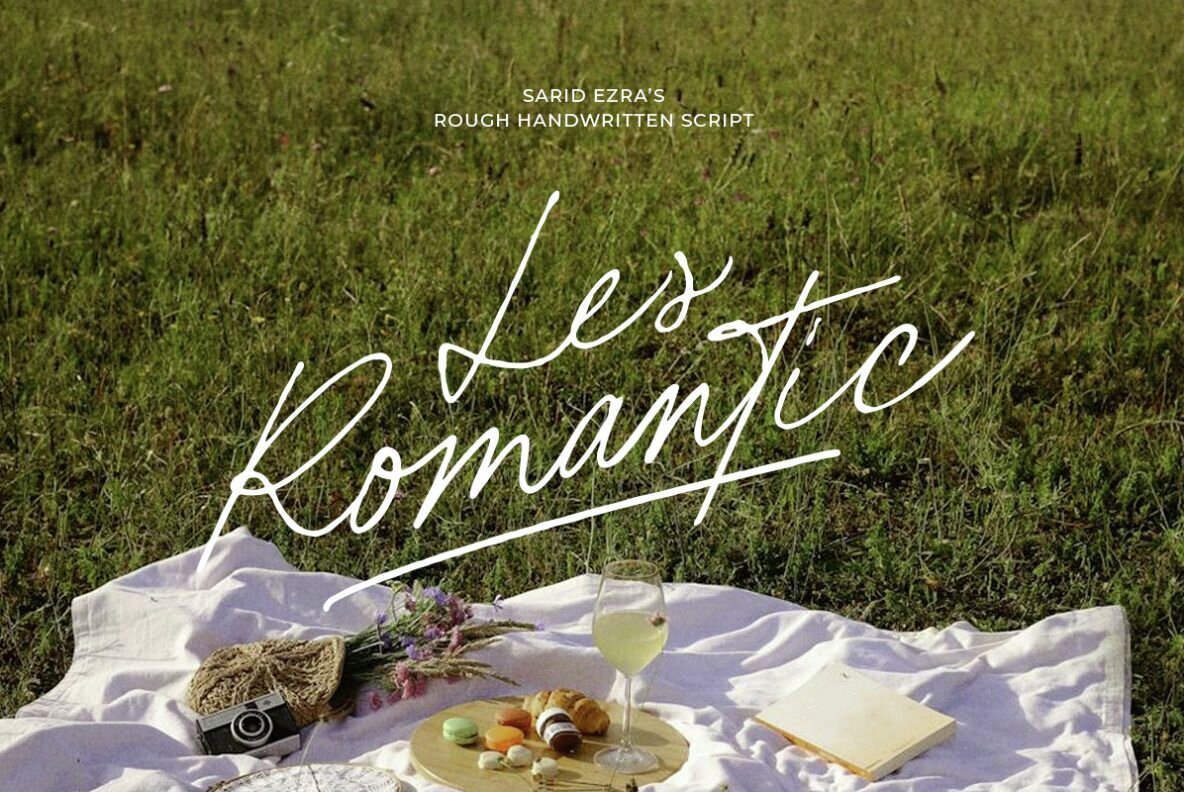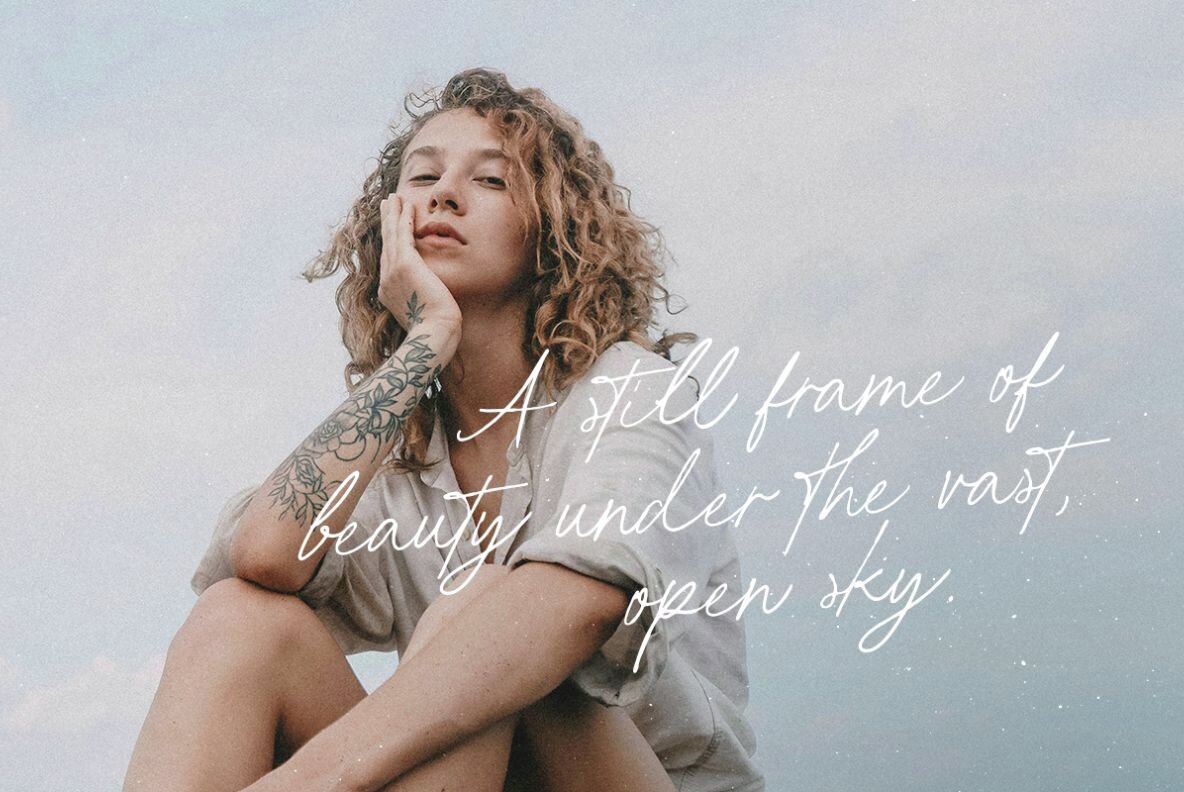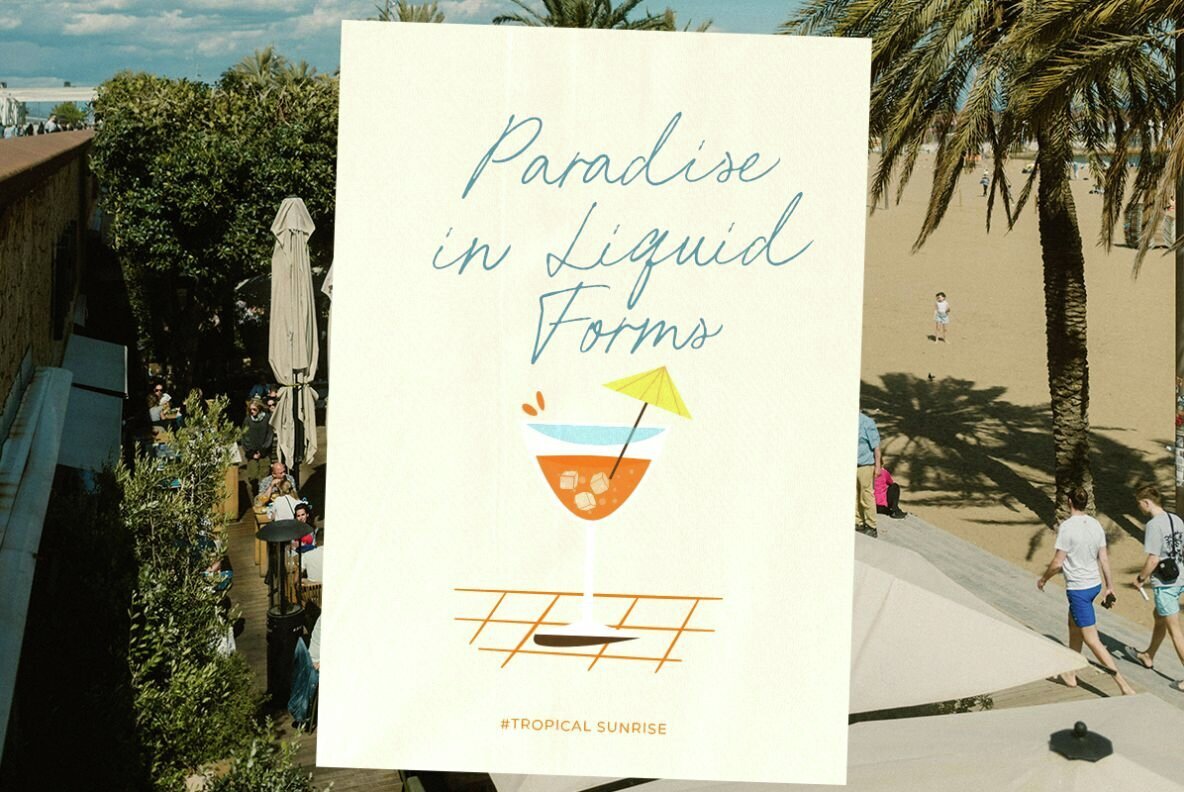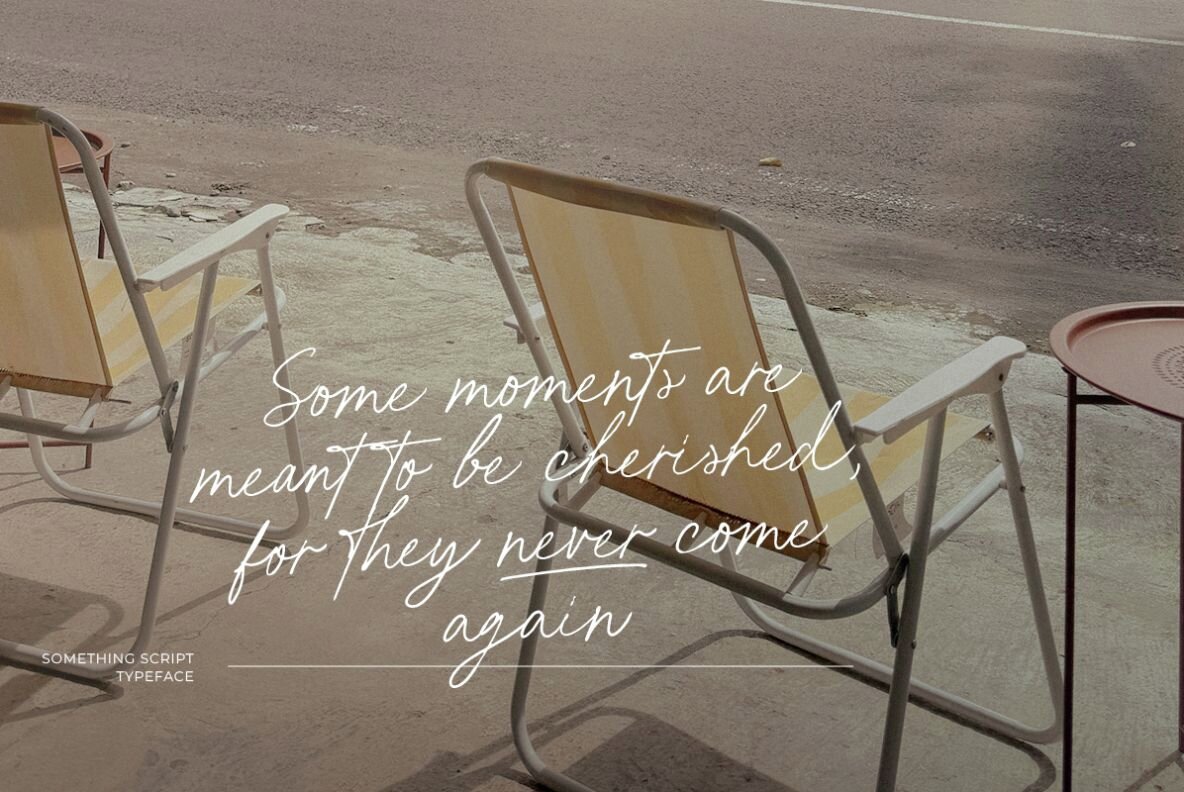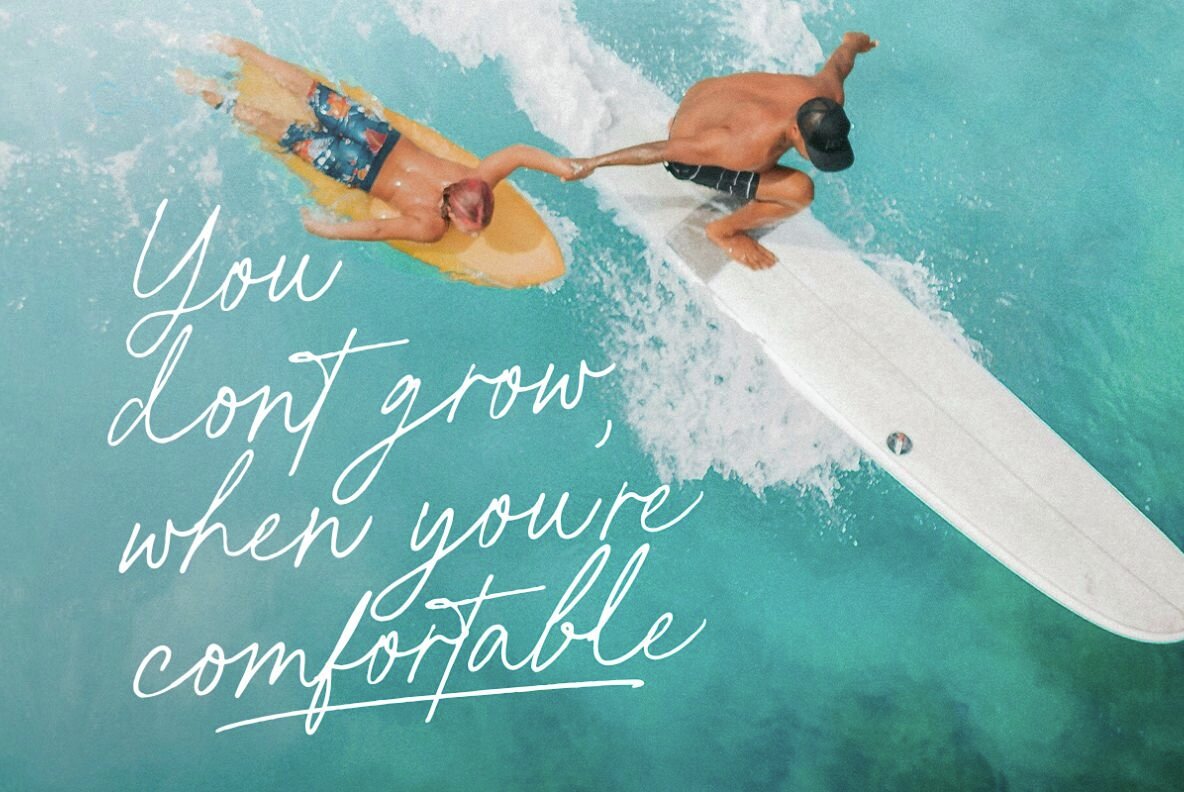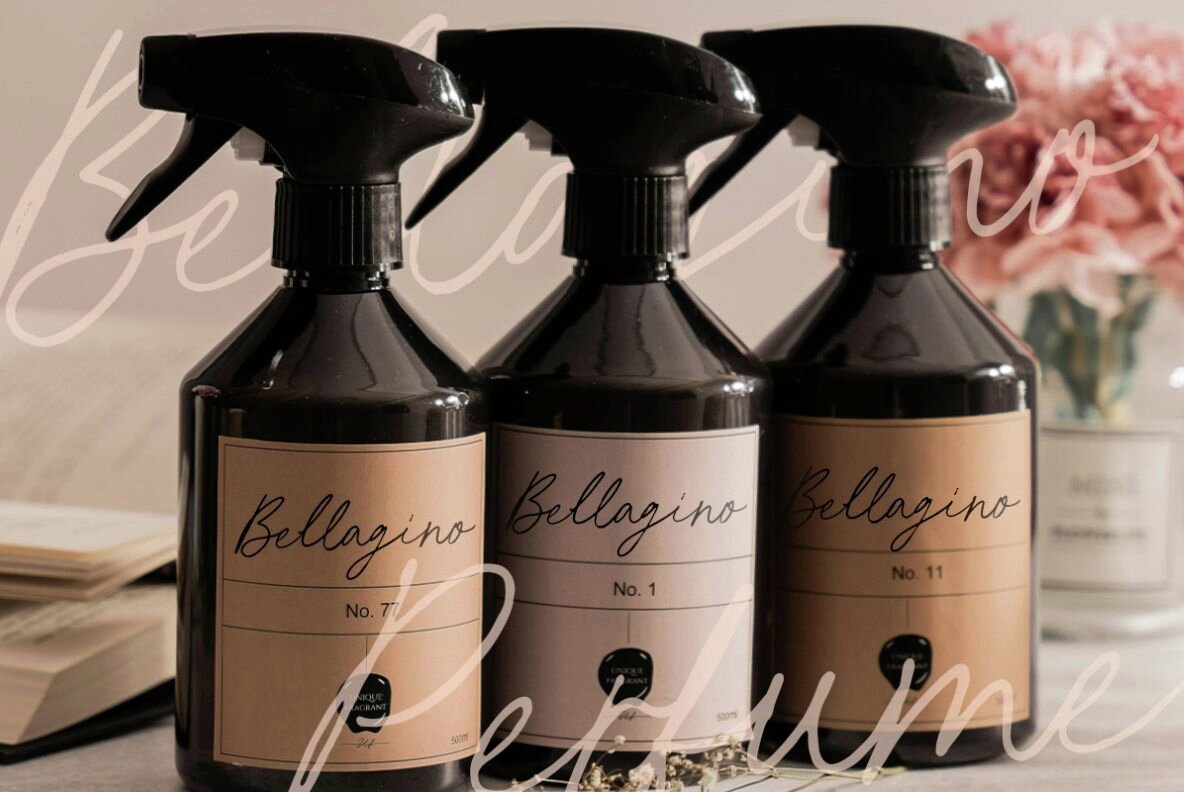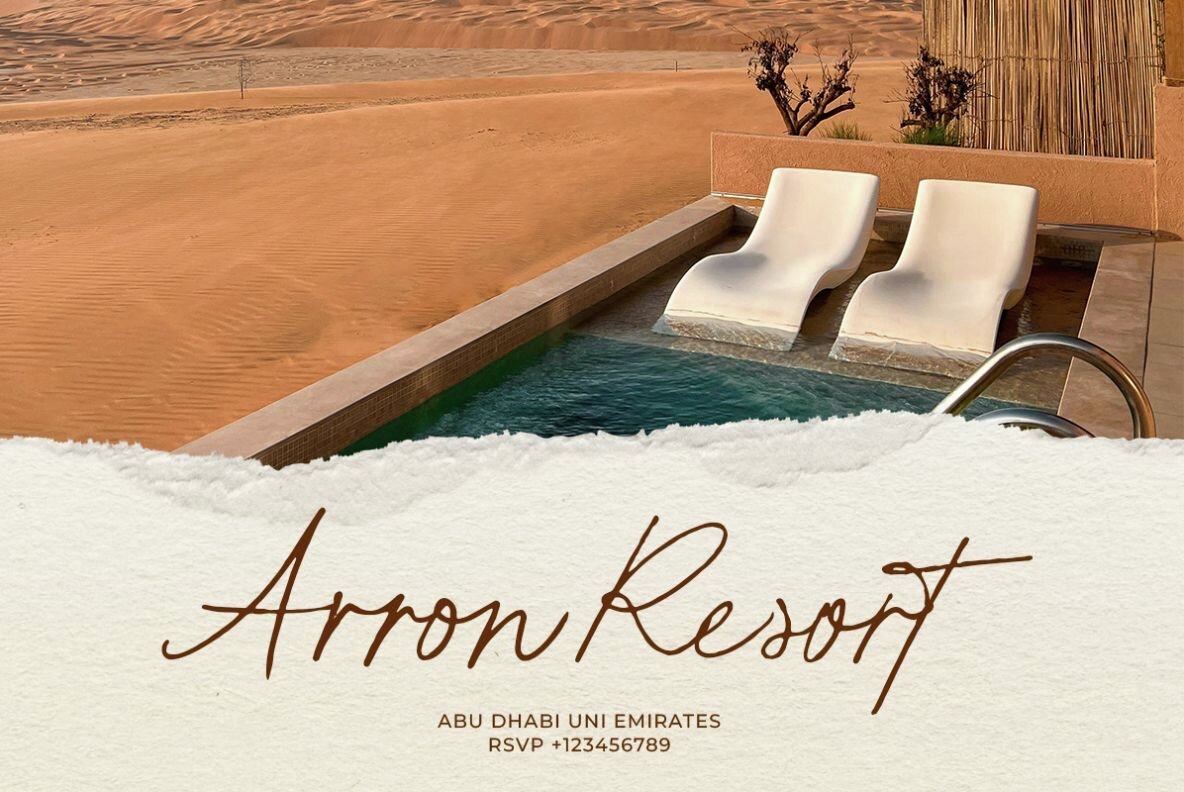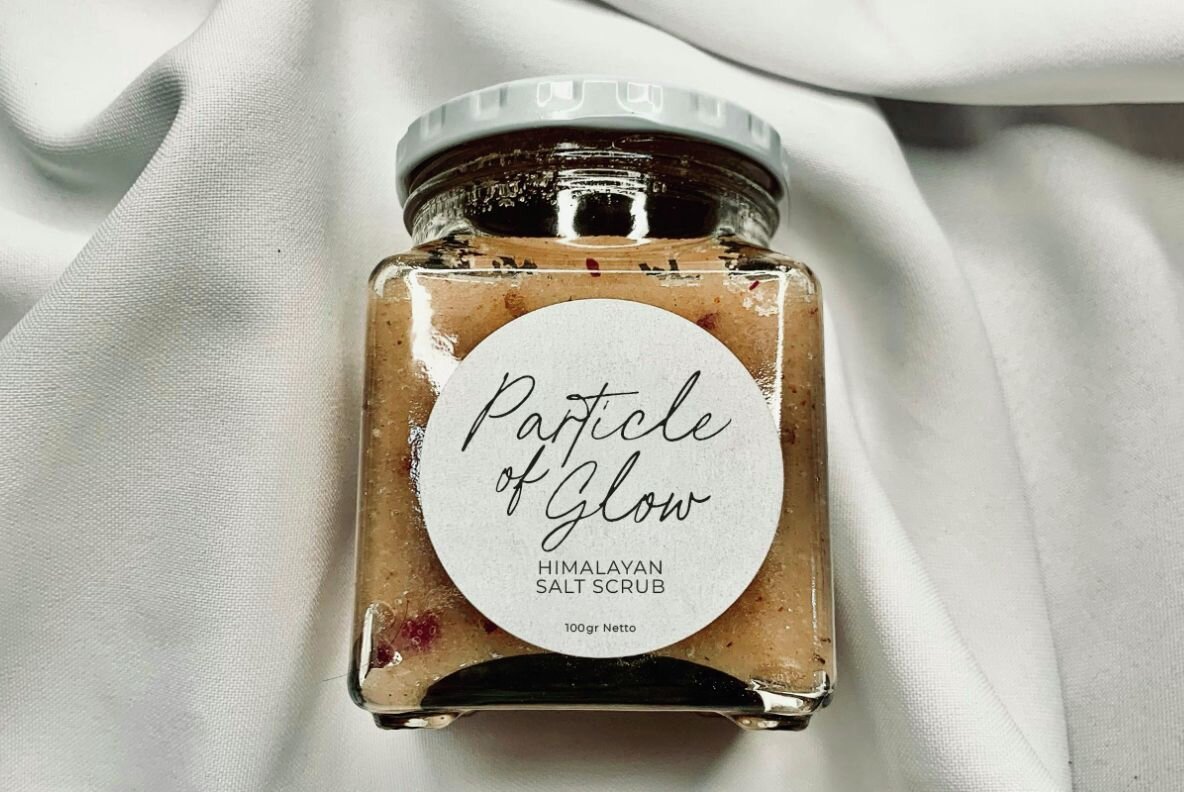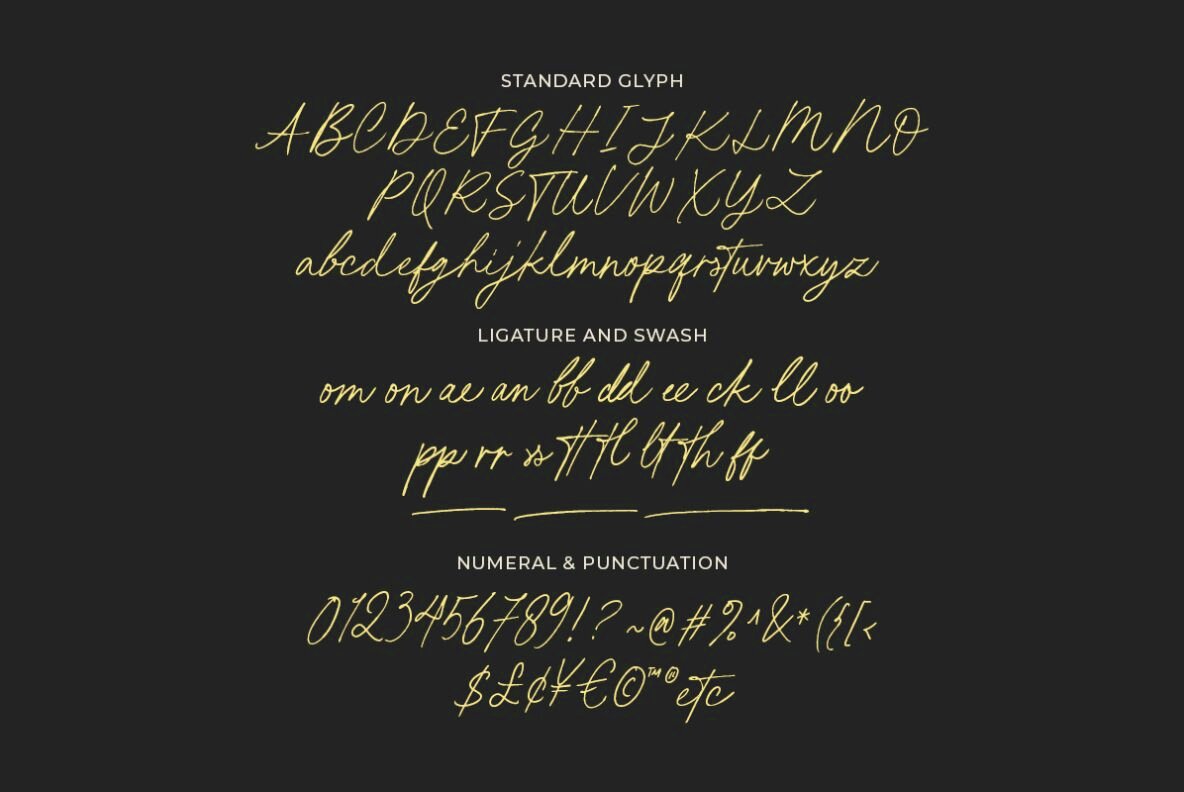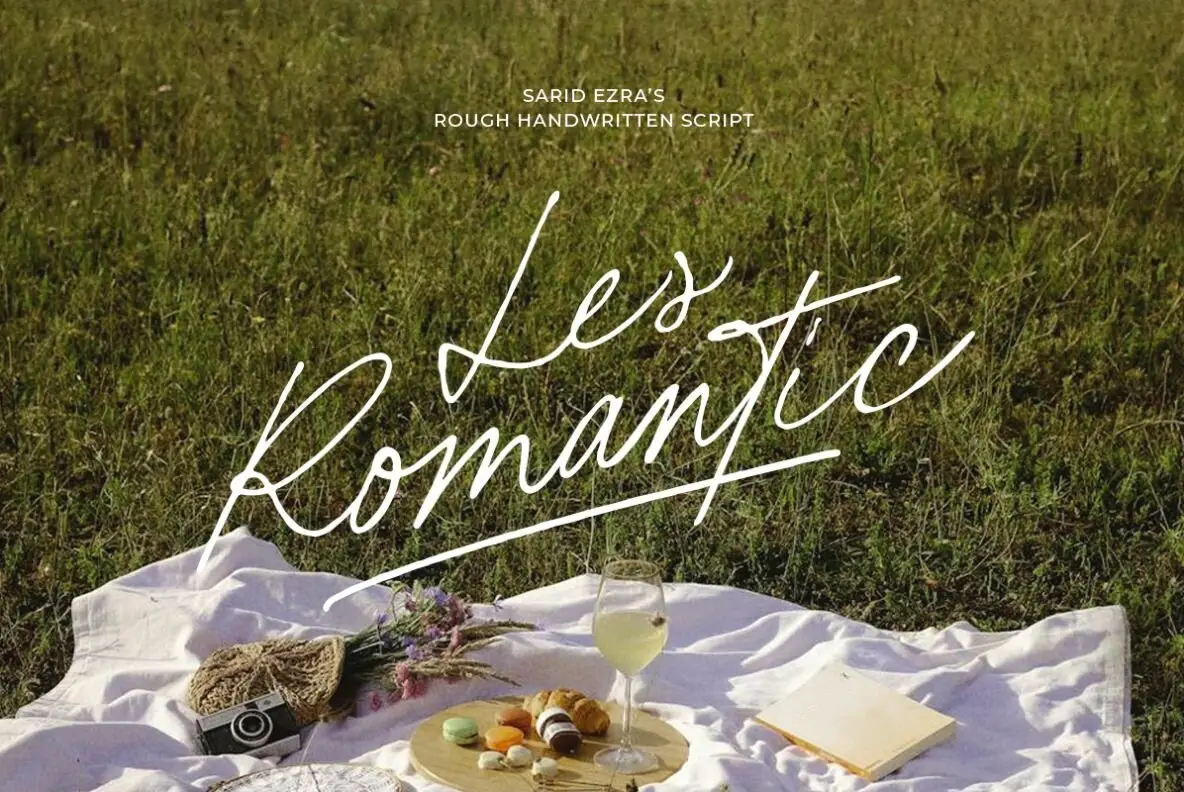
Les Romantic Font
Les Romantic Regular
Les Romantic is a rough script with ligatures that will make your designs looks more naturally handwritten. You can use this font for any purposes such as label, logo, handwritten quotes, wedding invitations and more. This font also have underline that you can access from ligature feature, just type underscore + number(1-3) in the middle of your words. Les Romantic also come with multilingual support.